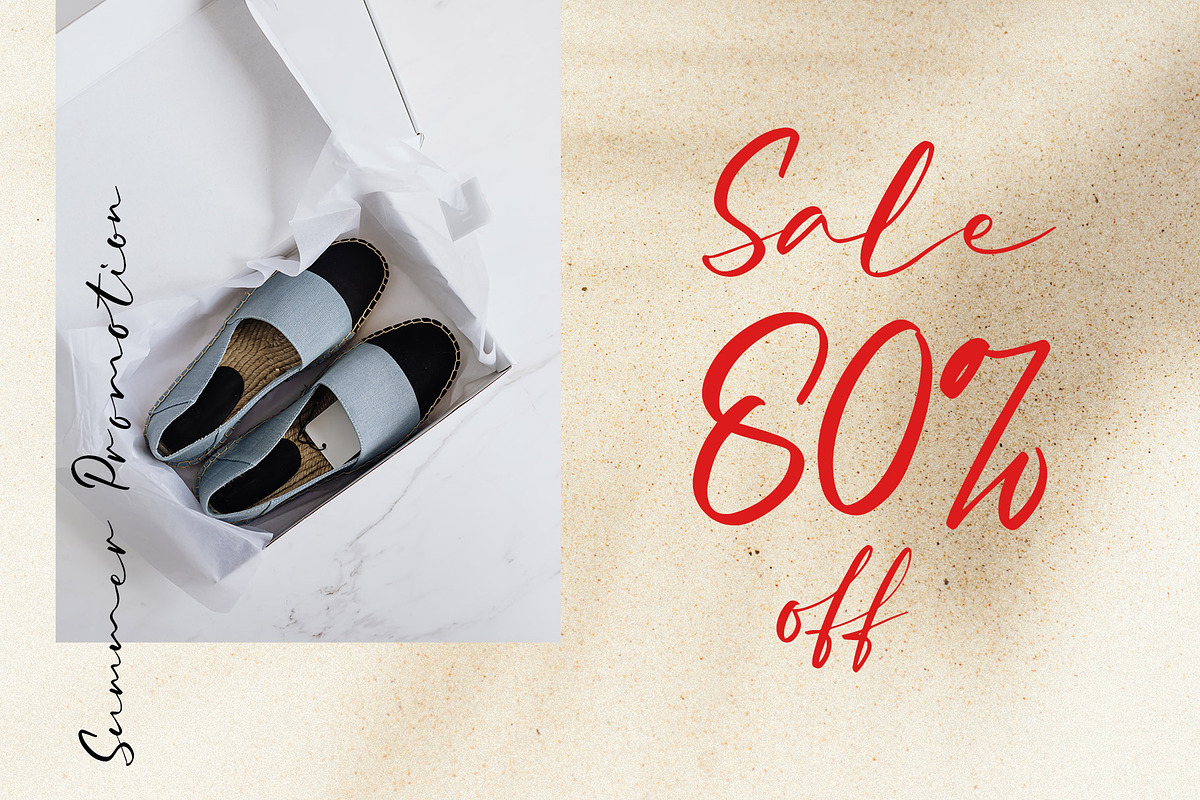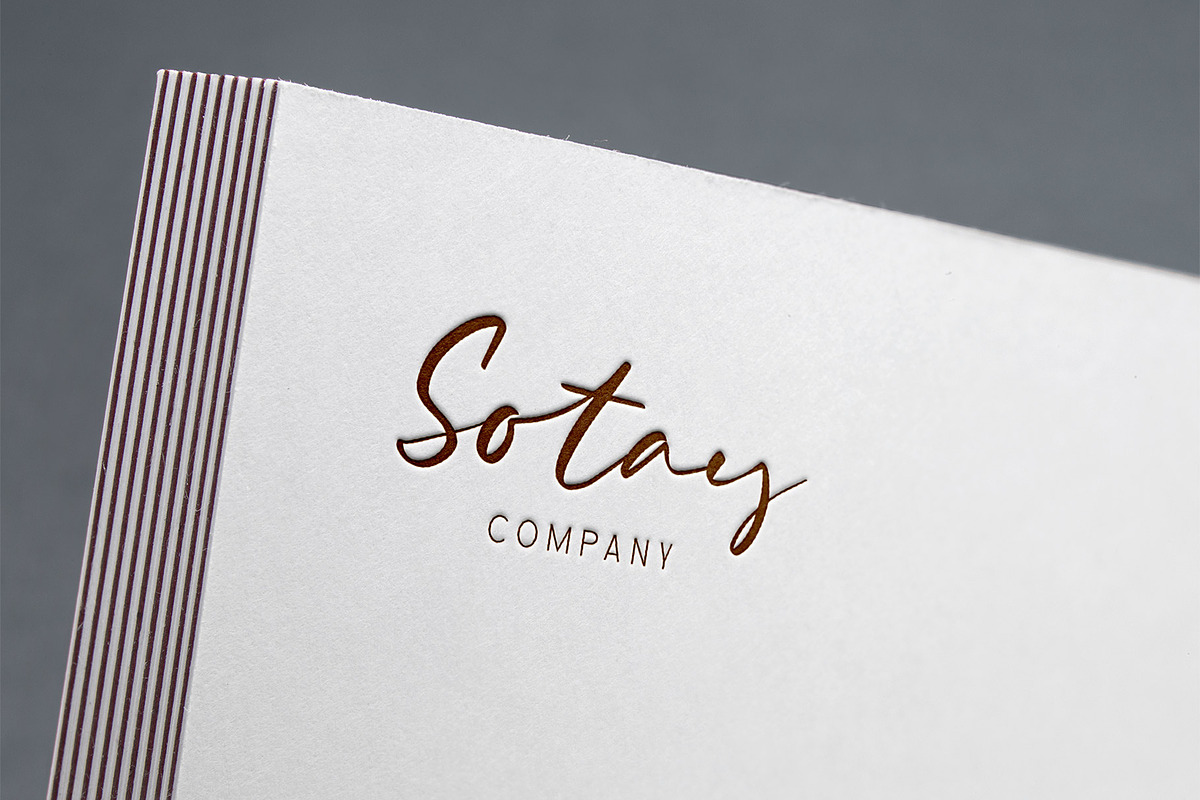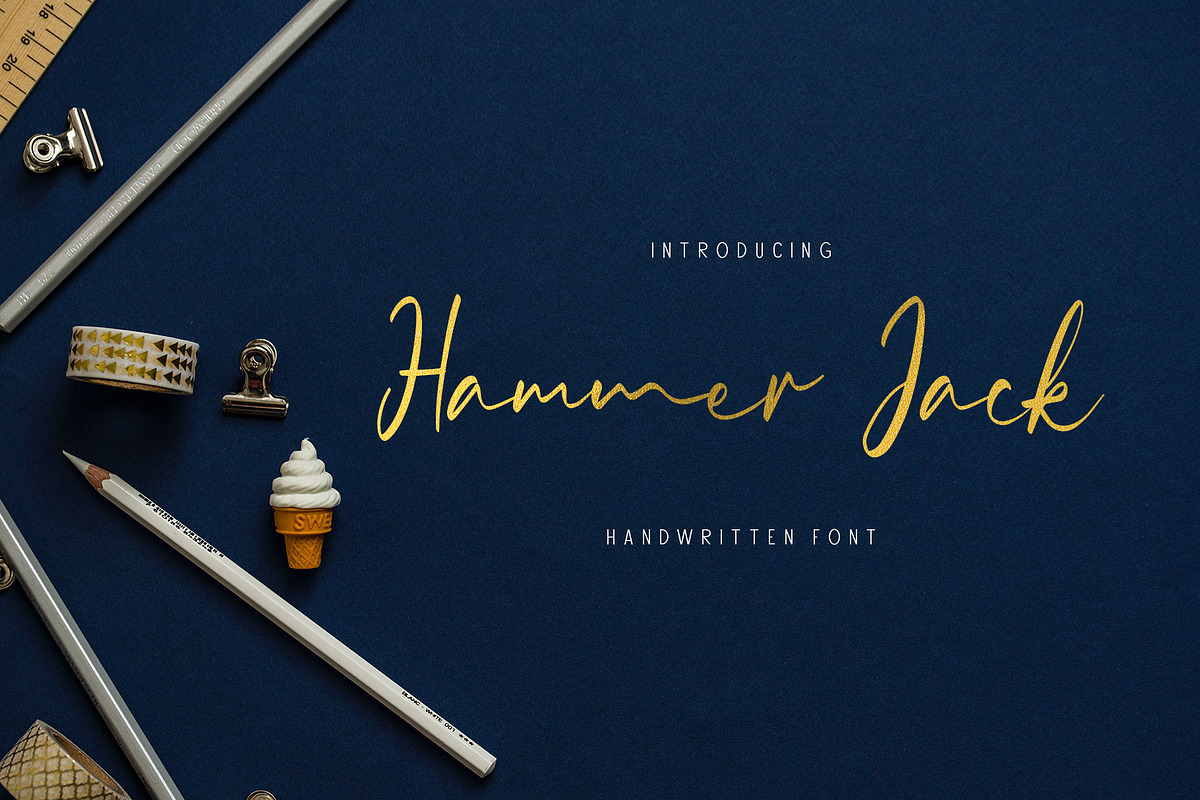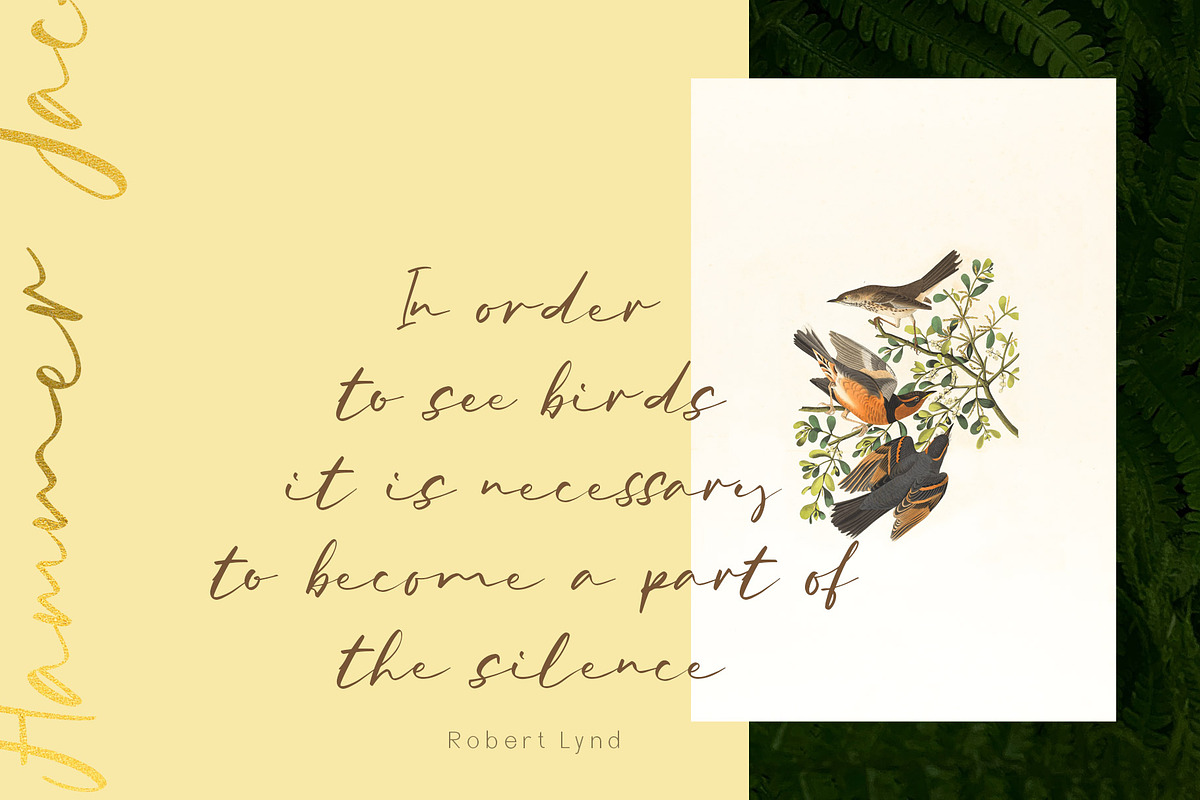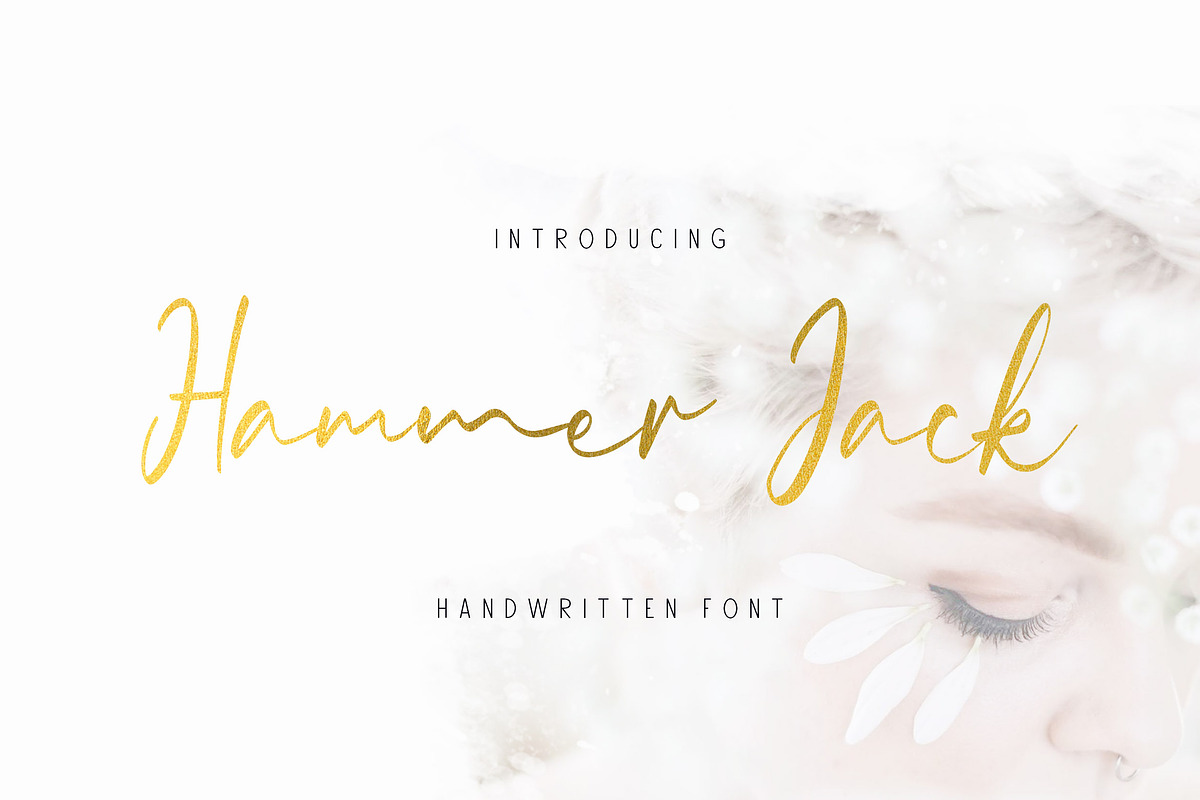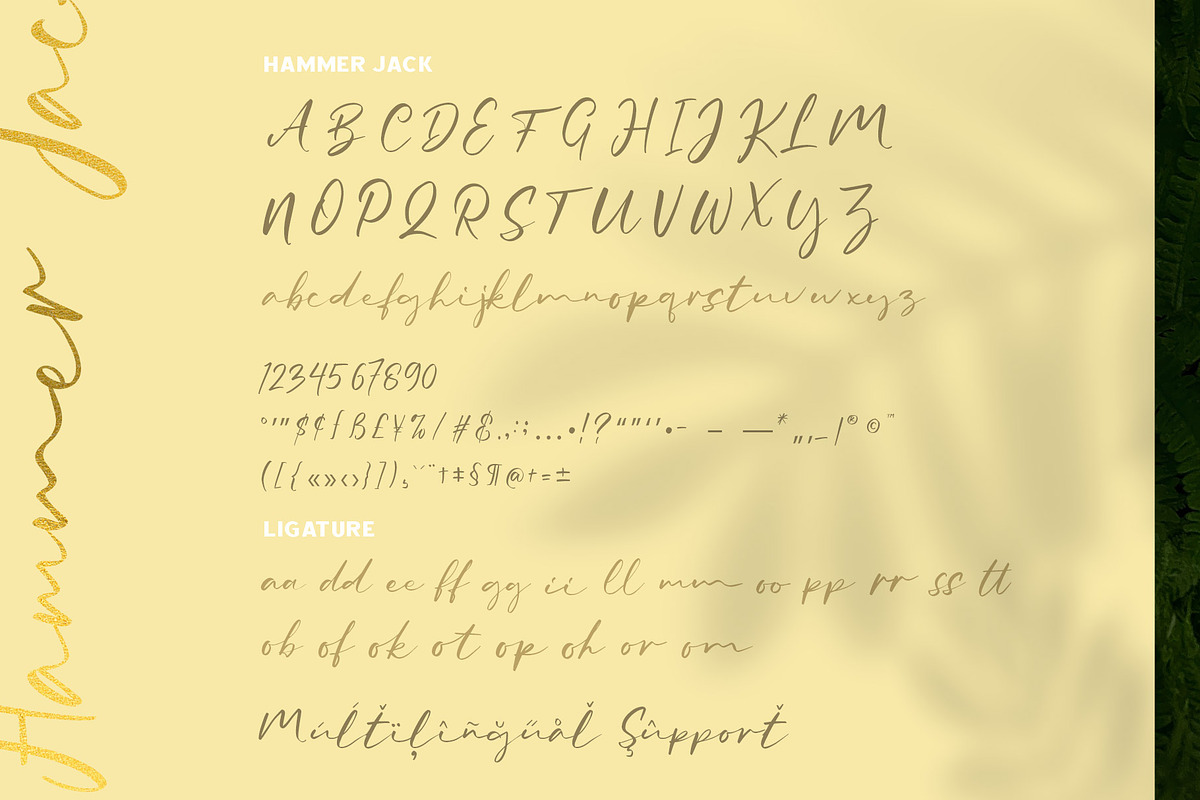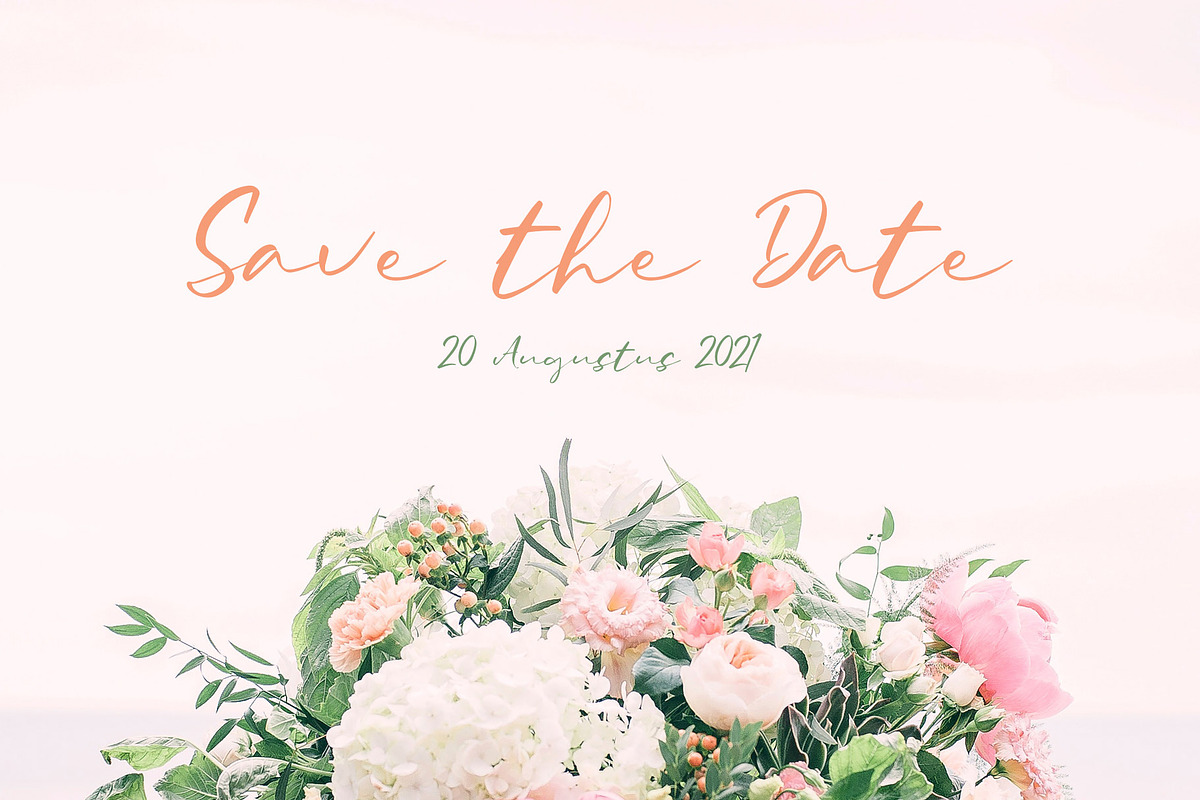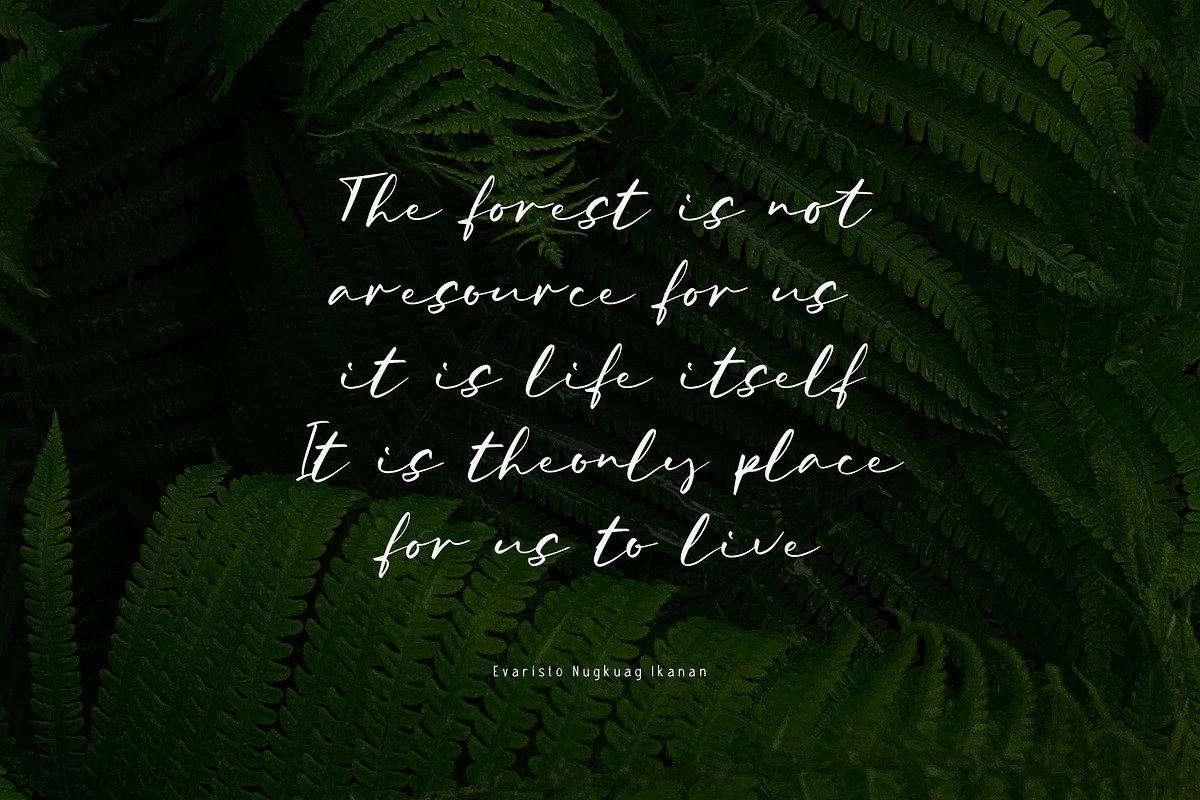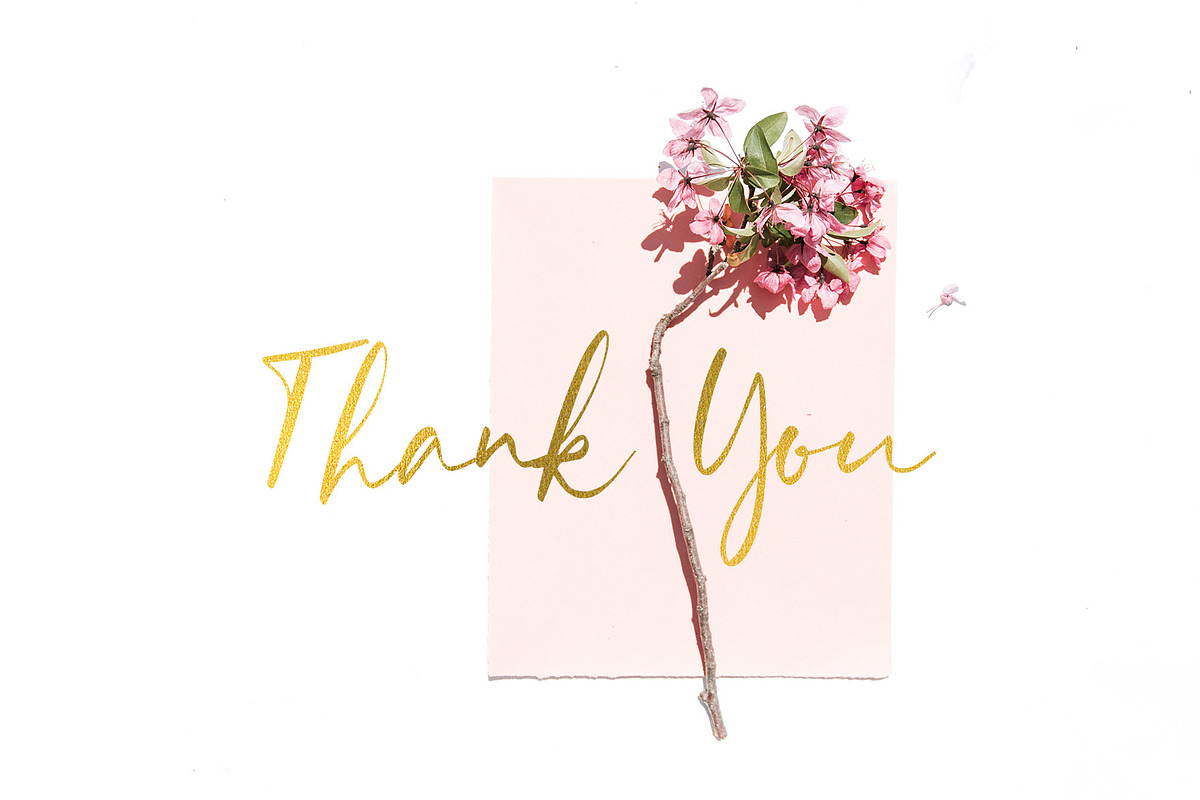
Hammer Jack
Hammer Jack handwritten font is a very beautiful and unique Classy Font that comes with a very beautiful ligature surprise with different font characters so it is perfect for your design needs such as printed quotes, invitation cards, social media, product packaging, your website and more!